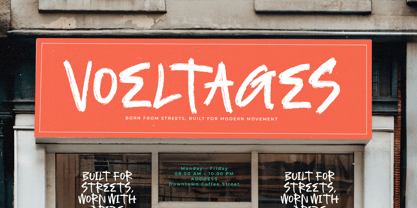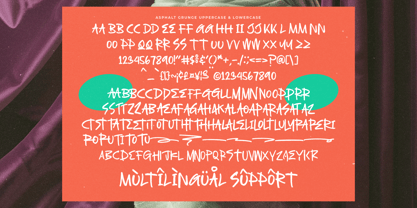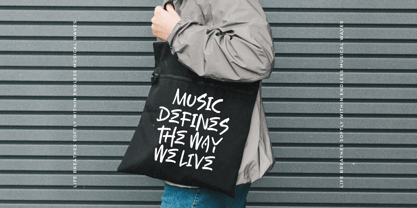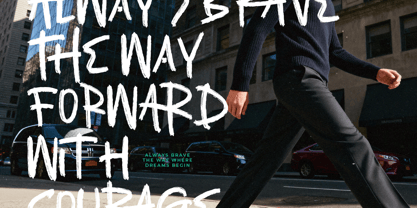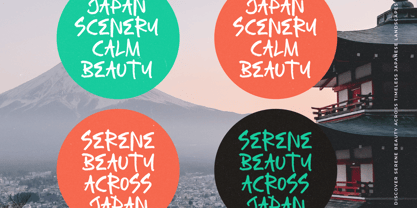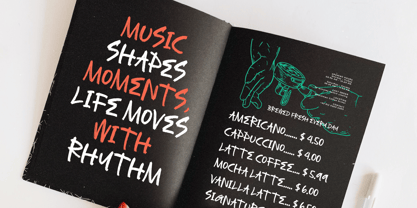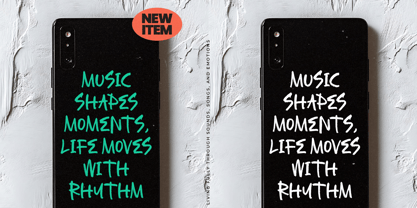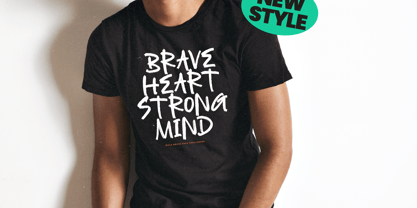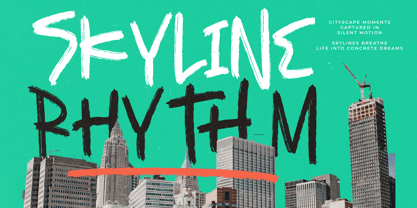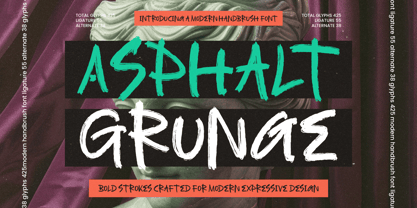
Asphalt Grunge
The Asphalt Grunge Font Family was designed by Heru Utama Putra and published by Stylishtype Studio. Asphalt Grunge contains 2 styles and family package options. More about this family
Asphalt Grunge is a bold modern handbrush font crafted for designers who want raw energy and unpolished expression in their work. Featuring torn brush textures, irregular strokes, and aggressive movement, this typeface brings an authentic street-style attitude to posters, album covers, merchandise, sports graphics, and editorial layouts. With 425 glyphs, 55 dynamic ligatures, 38 alternates, and full multilingual support, Asphalt Grunge offers maximum flexibility for loud, rebellious, and visually striking design compositions.